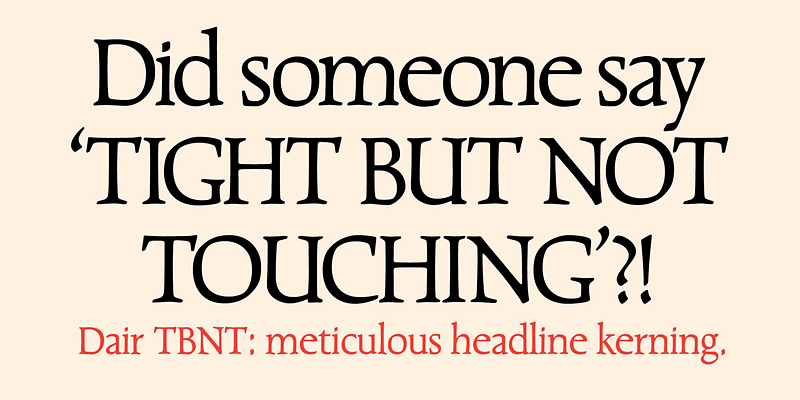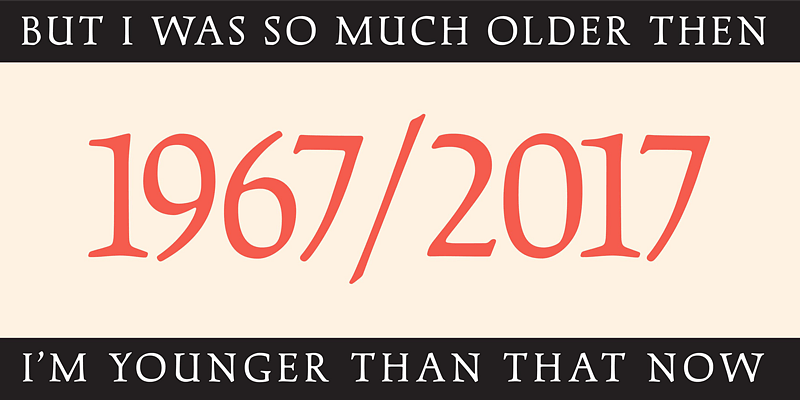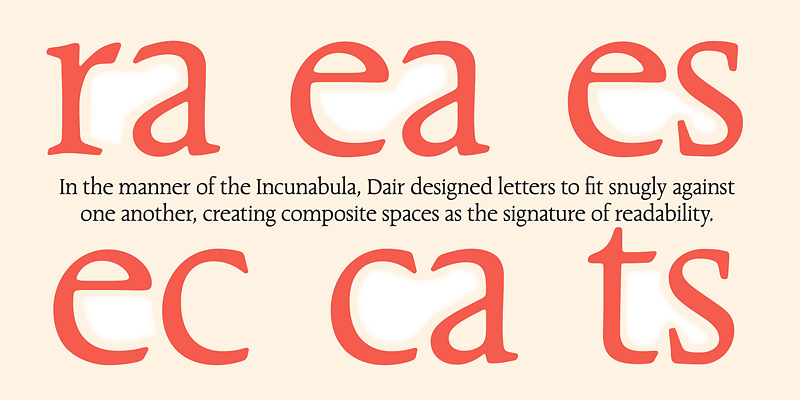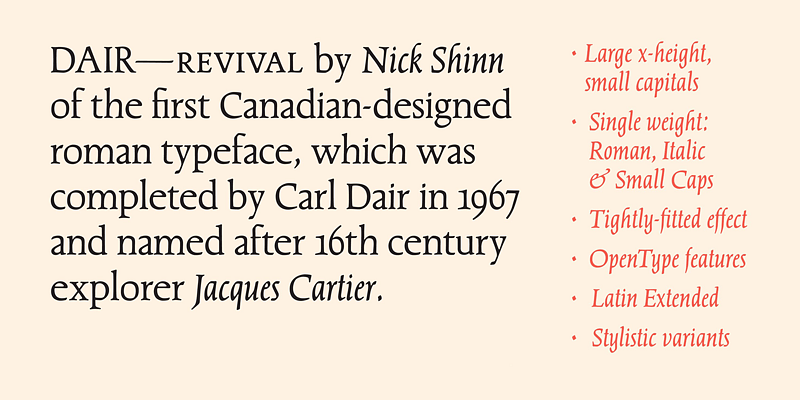
A meticulous restoration of the first Canadian-designed roman typeface, which was completed by Carl Dair in 1967 and named after 16th century explorer Jacques Cartier. The typeface is characterized by ascenders which tower dramatically above the capitals, by condensed italic minuscules inclined at a mere 6 degrees—and by its profound empathy for the core principles of the roman type form, originating over 500 years ago.